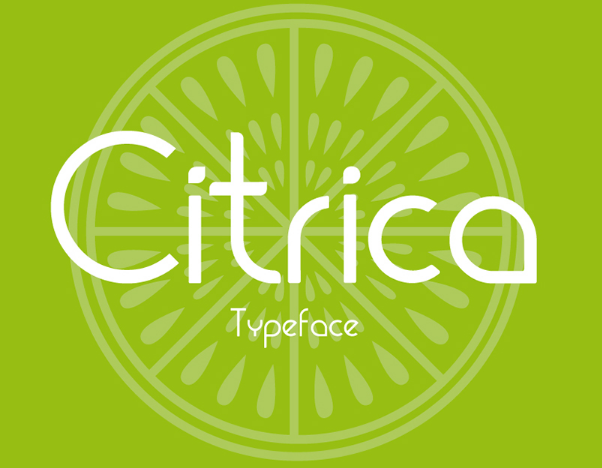
Cítrica Font
A free sans serif typeface based on the freshness of the citrus fruits. Introducing Cítrica Font! Cítrica was designed and shares completely free by Mario Otálvaro. The romantic and beautiful feel create this theme. Cítrica Font for awesome display, illustrations, posters, logos, t-shirts, titles, and much more..